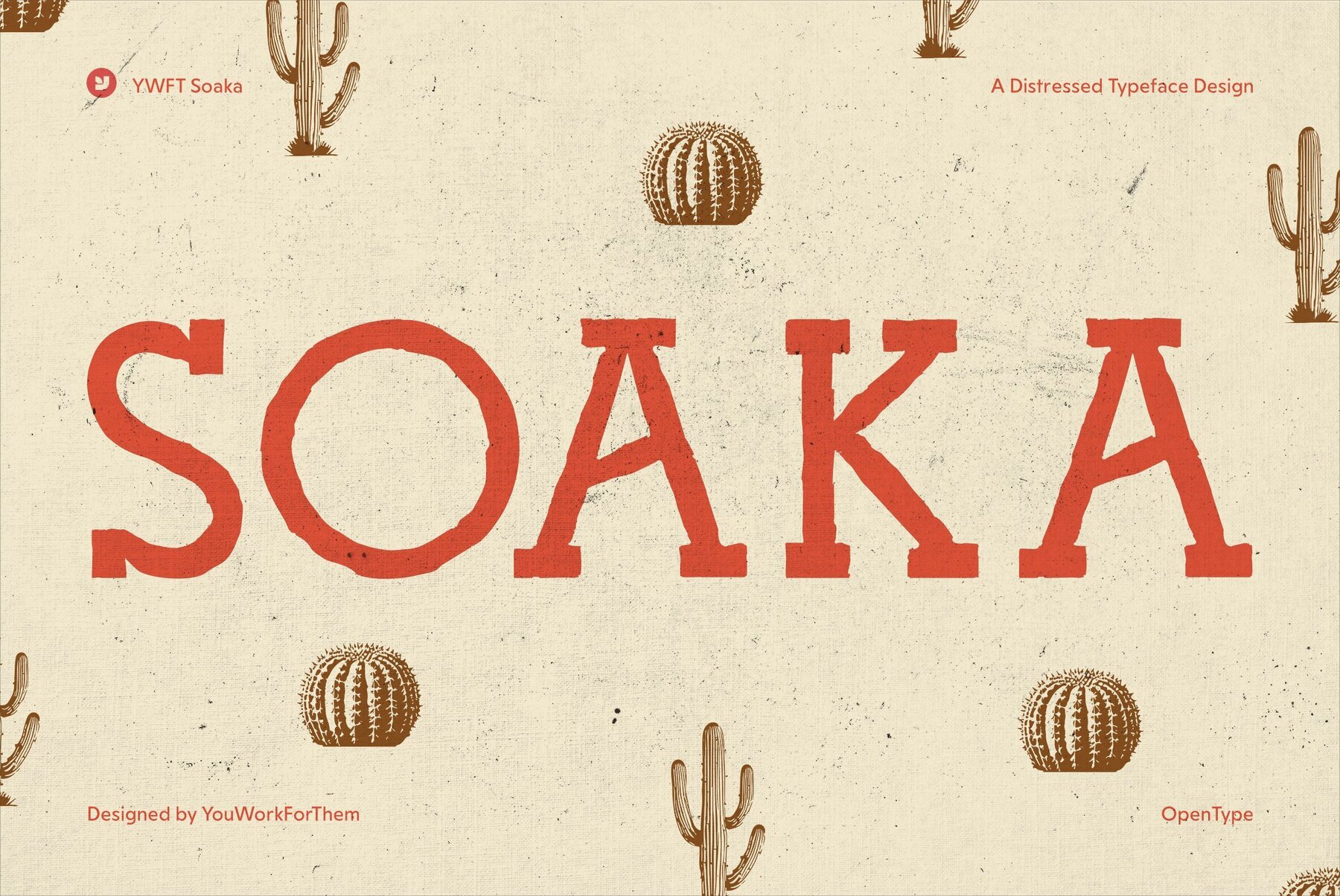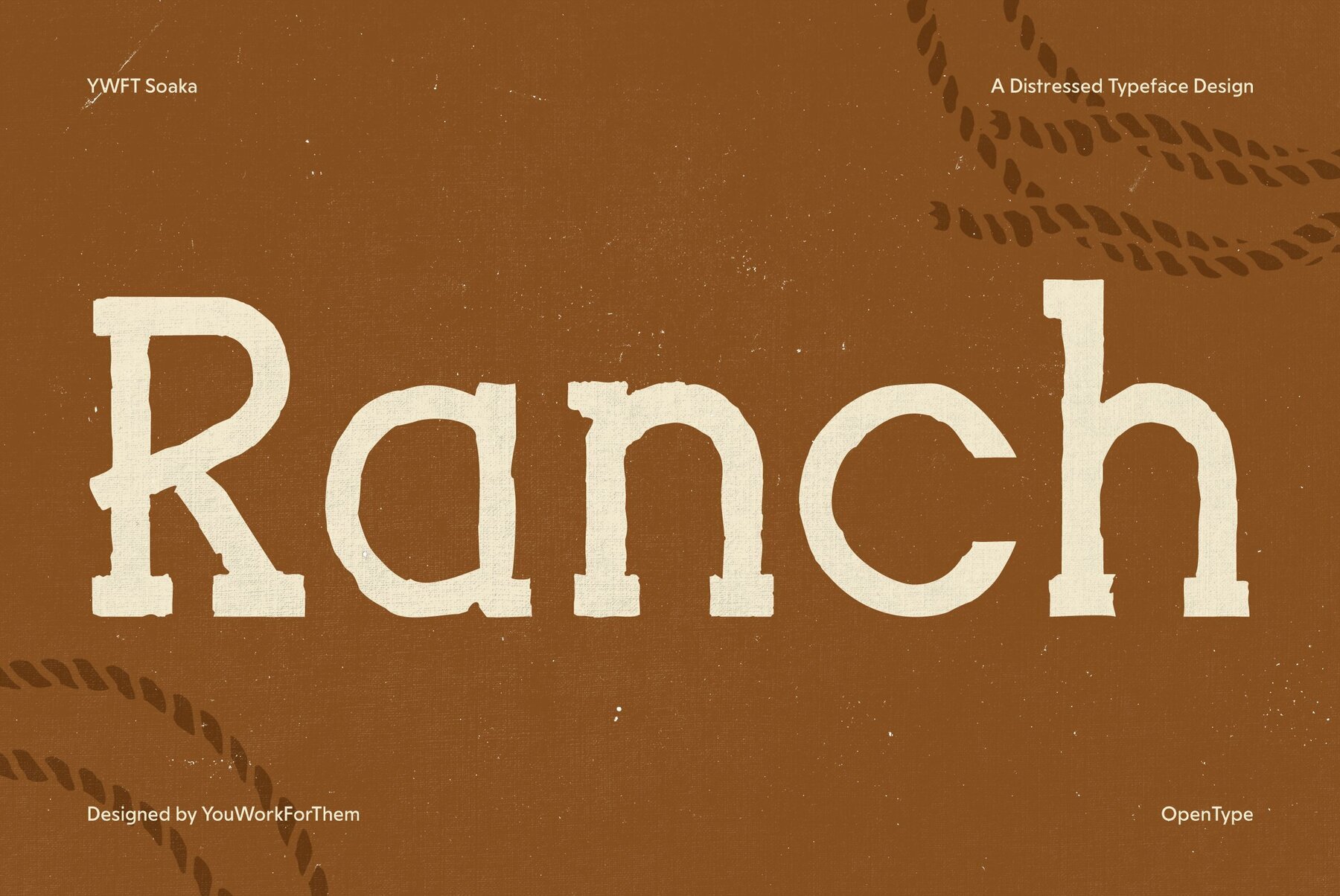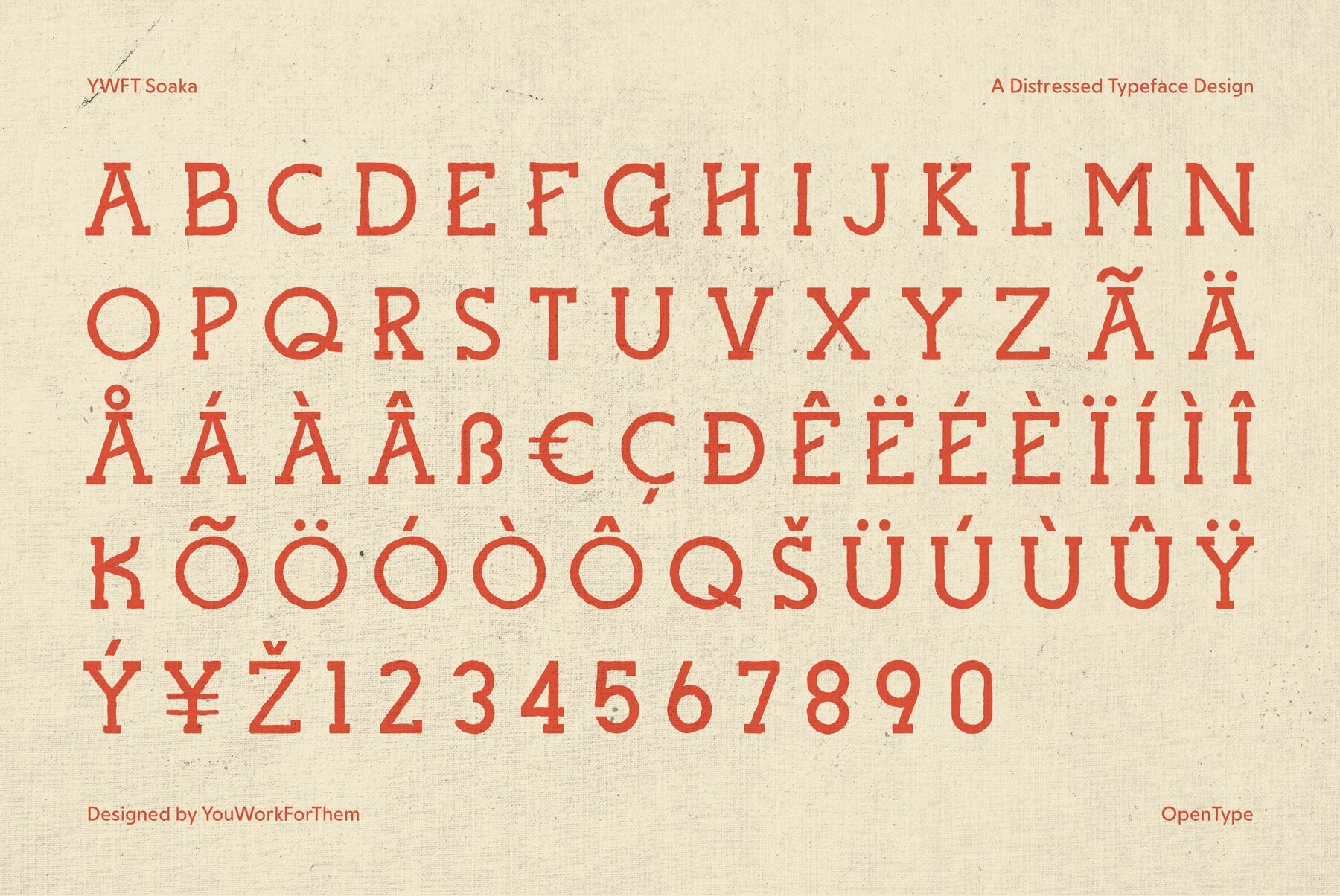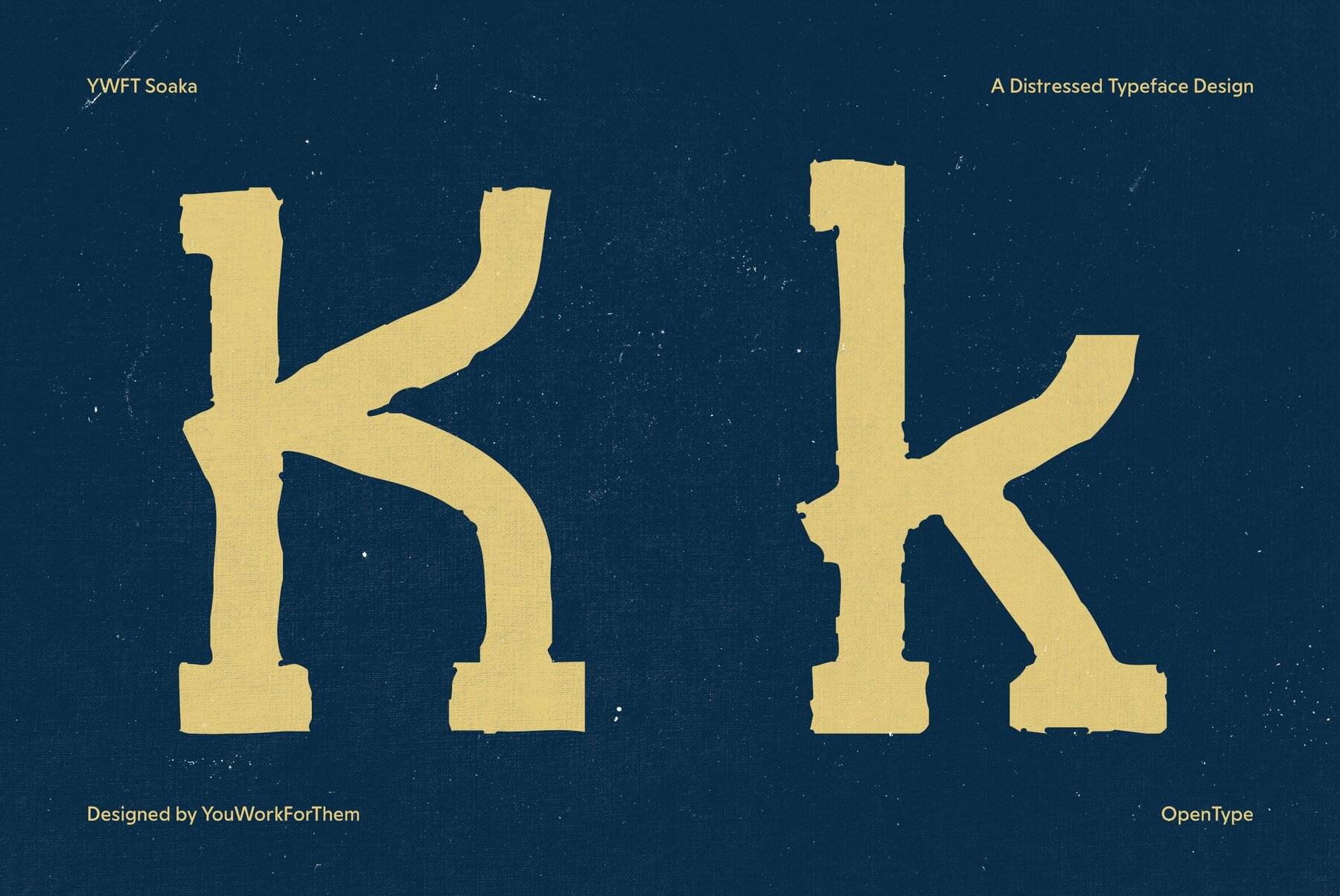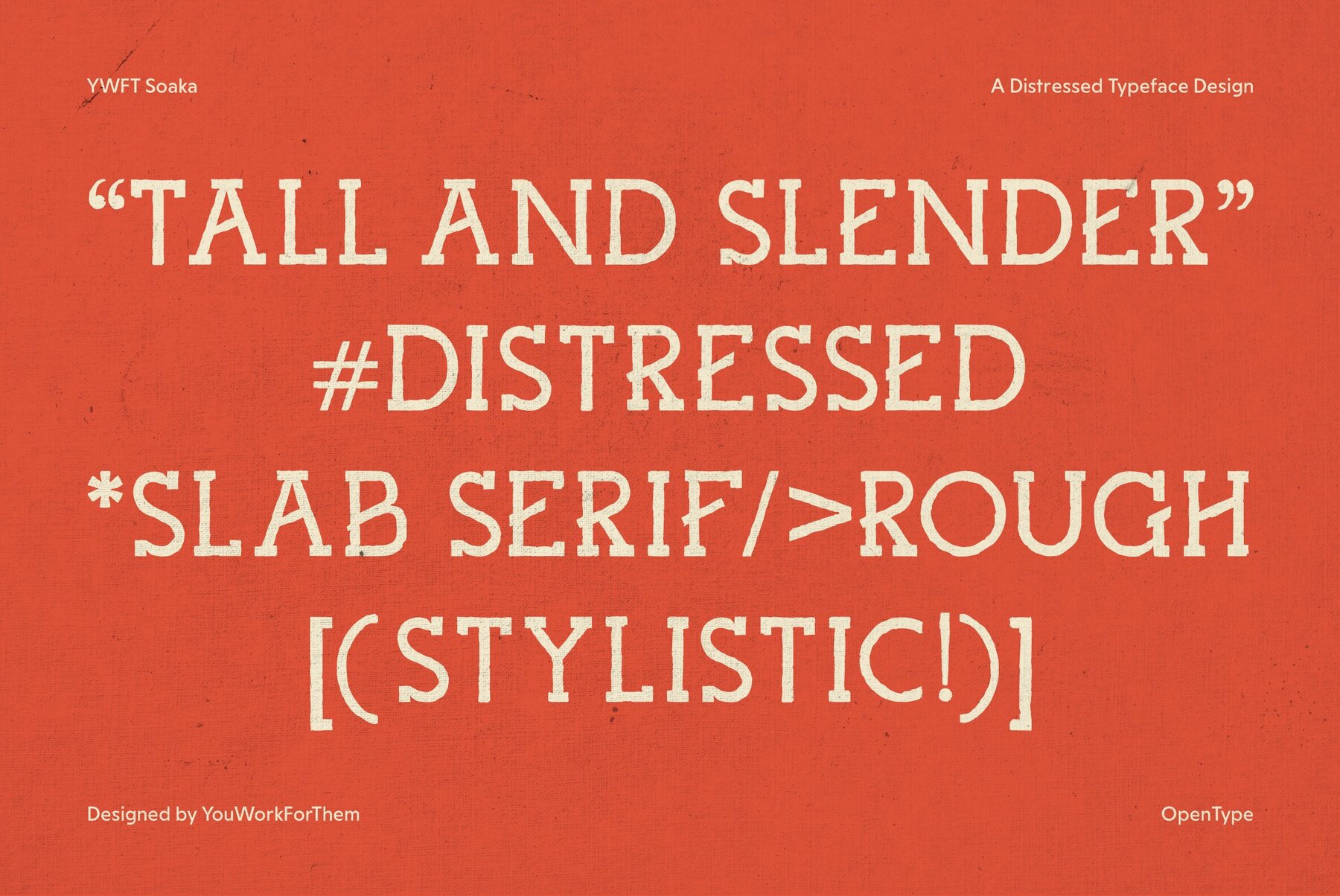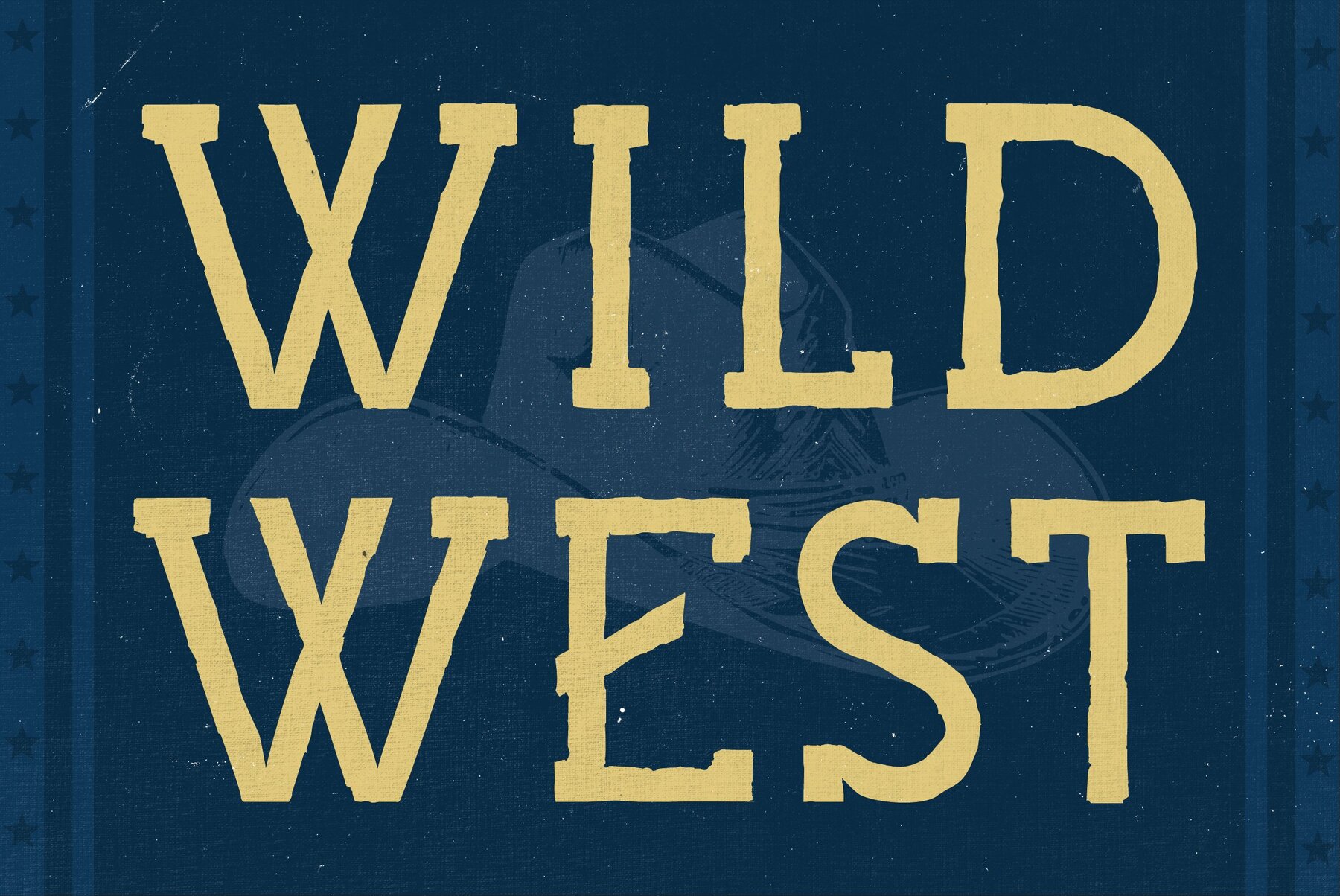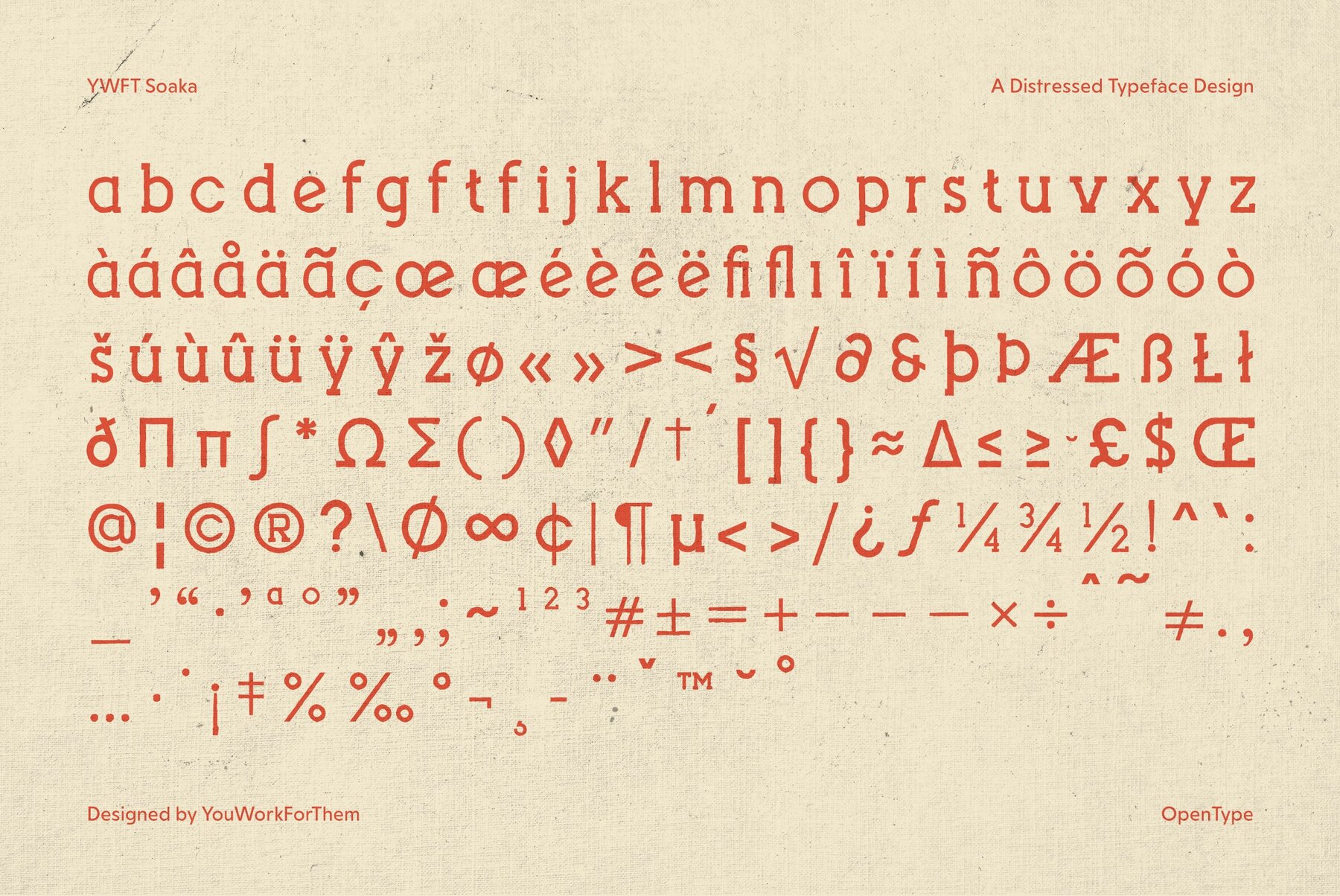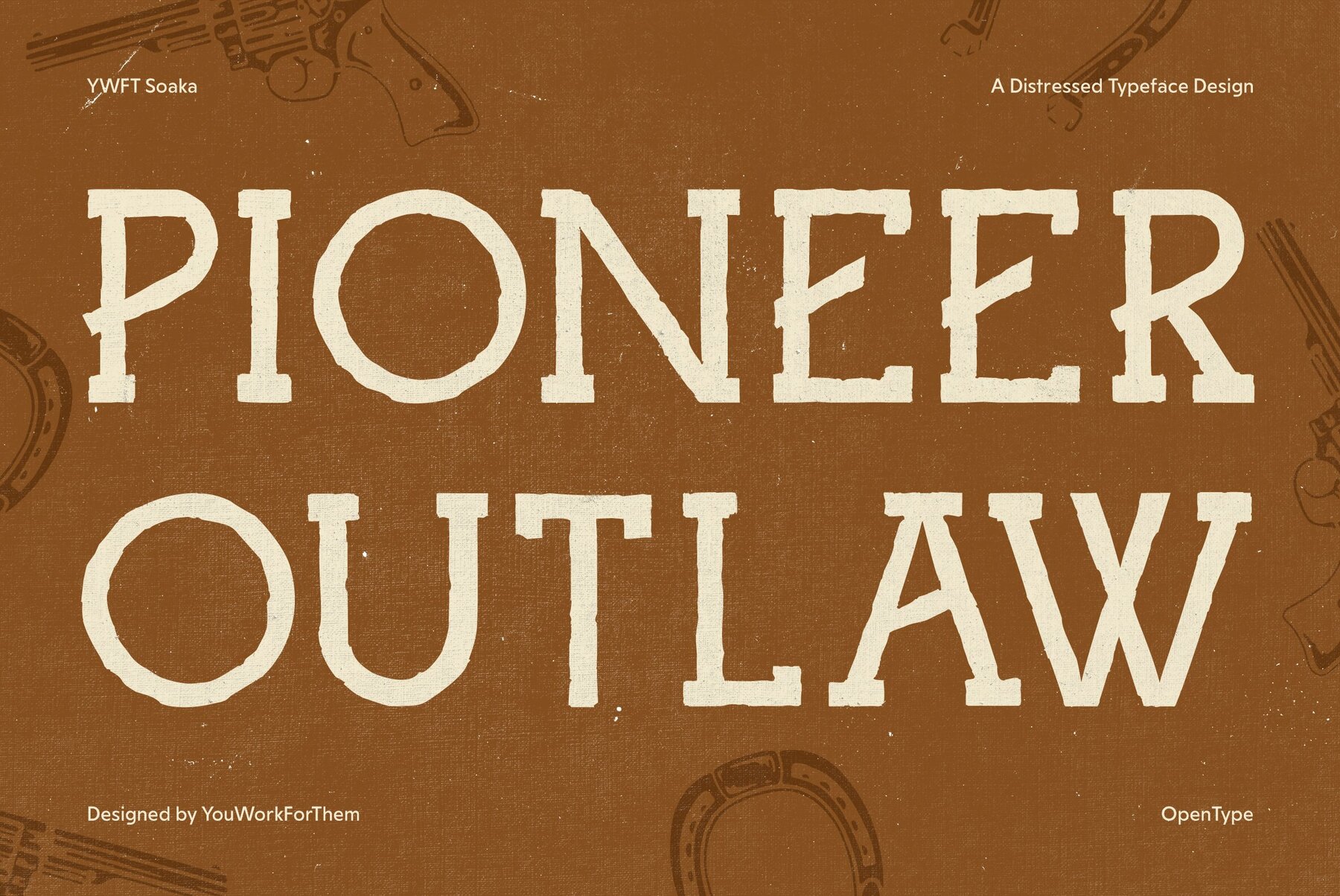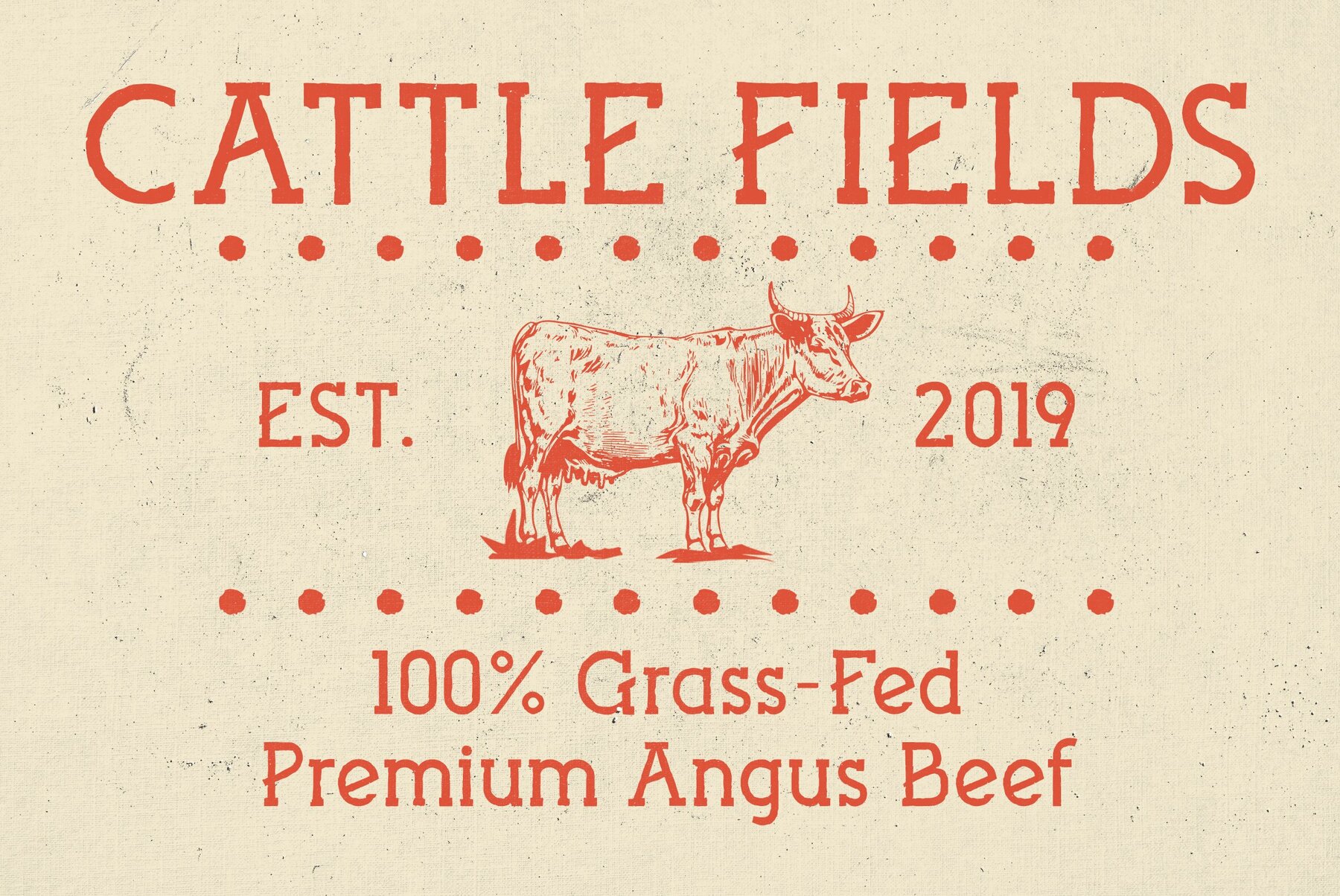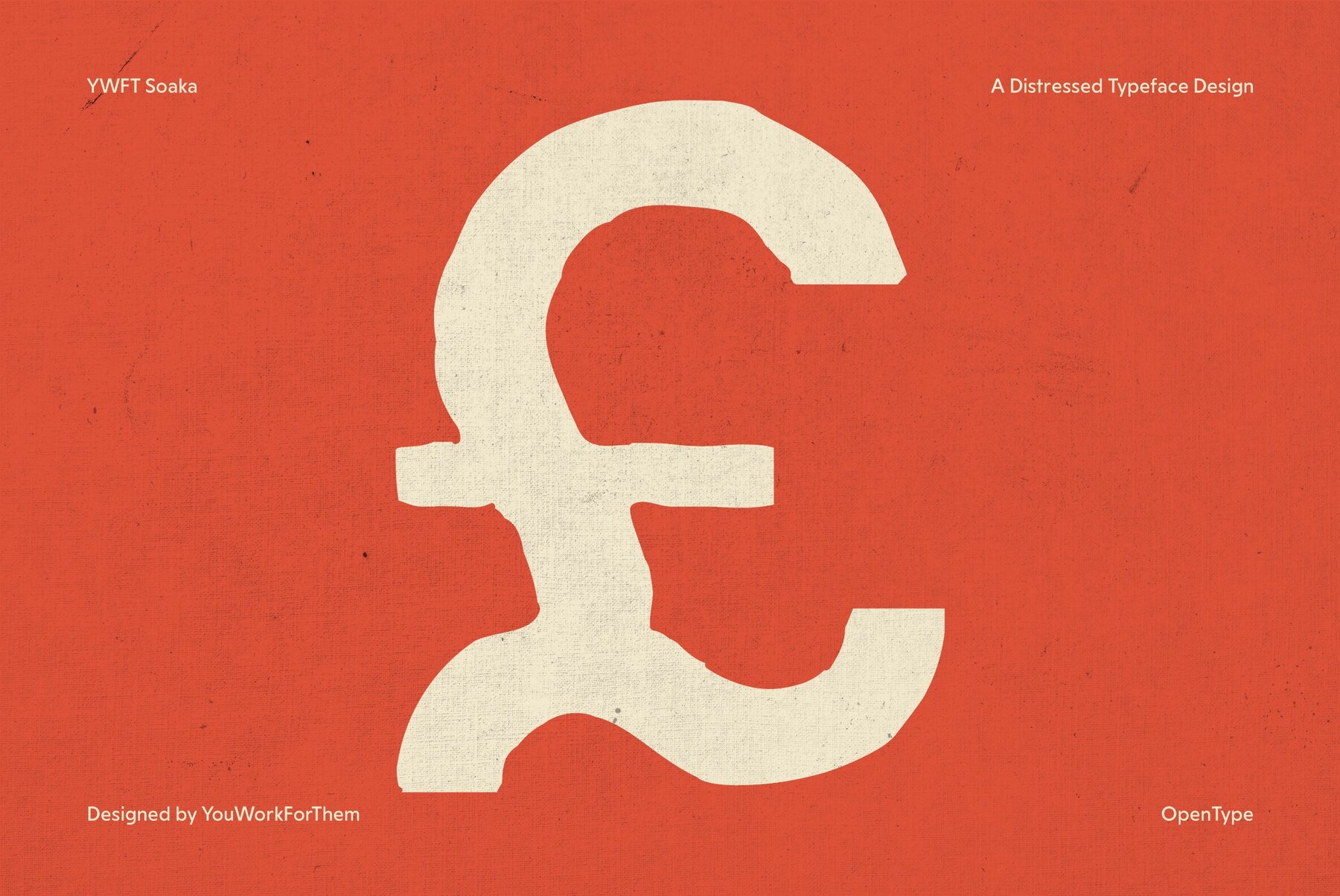
YWFT Soaka
Look out, Clark W. Griswold, because YWFT Soaka just parked on your front lawn. YWFT Soaka is the grotesque, raw, country cousin of our slab serifs Motown and Lollop, and brings the pain when you're facing down those rough Cobra Kai design jobs in the middle of the night. This totally out-of-control slab serif is available in opentype format, and is coded with stylistic alternate options that offer a more playful approach. Grab a can of Blatz and get ready to crush it on your skull, 'cause it's time to hit the street with YWFT Soaka.